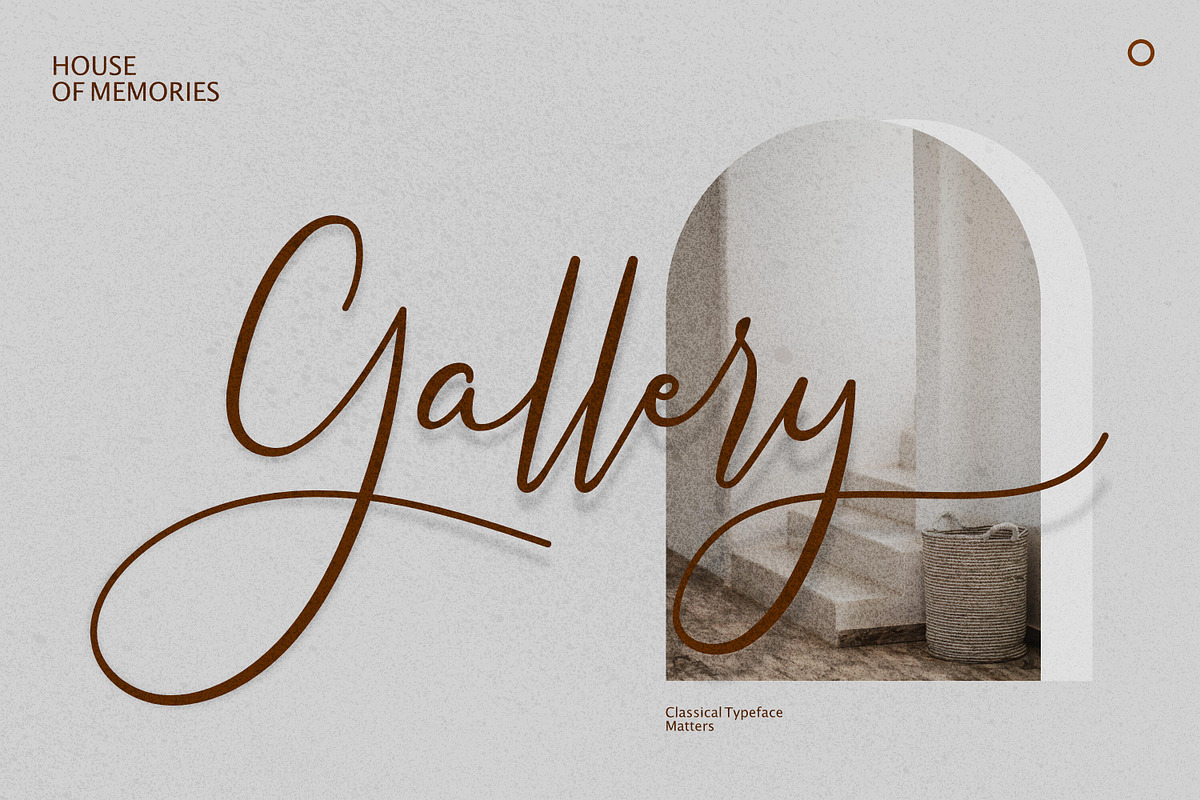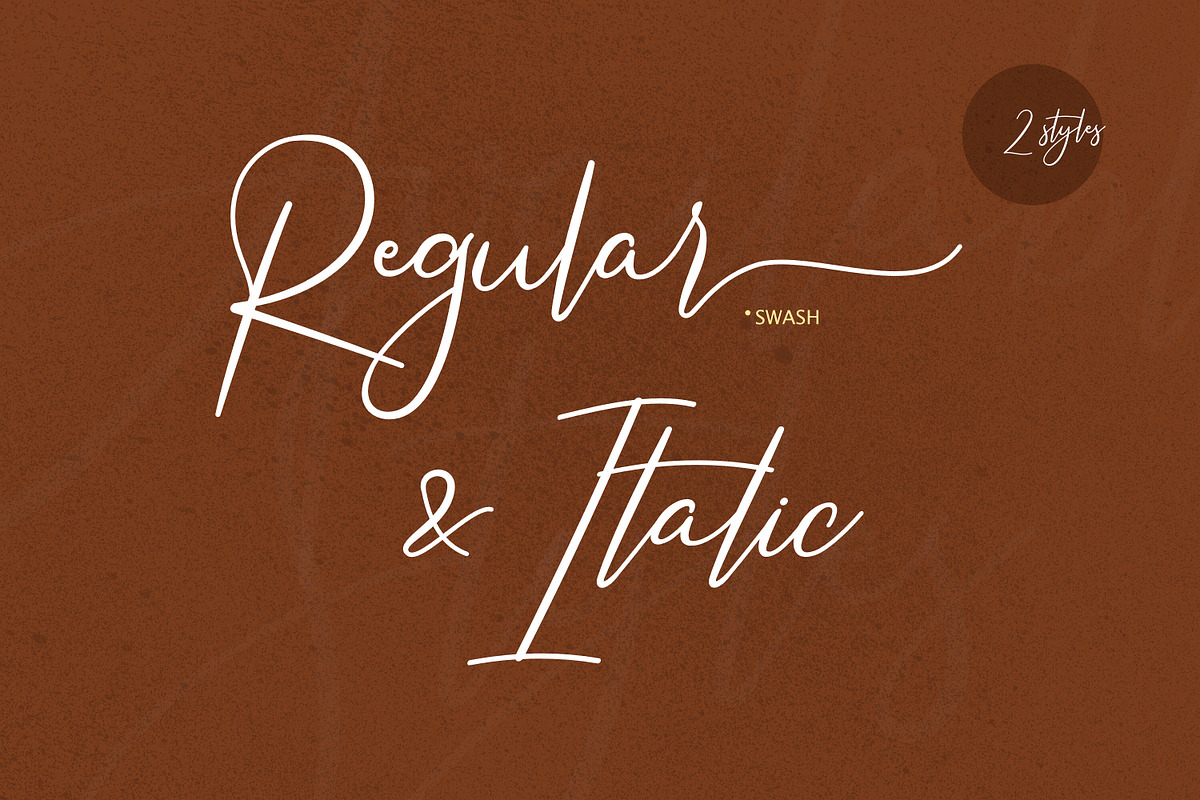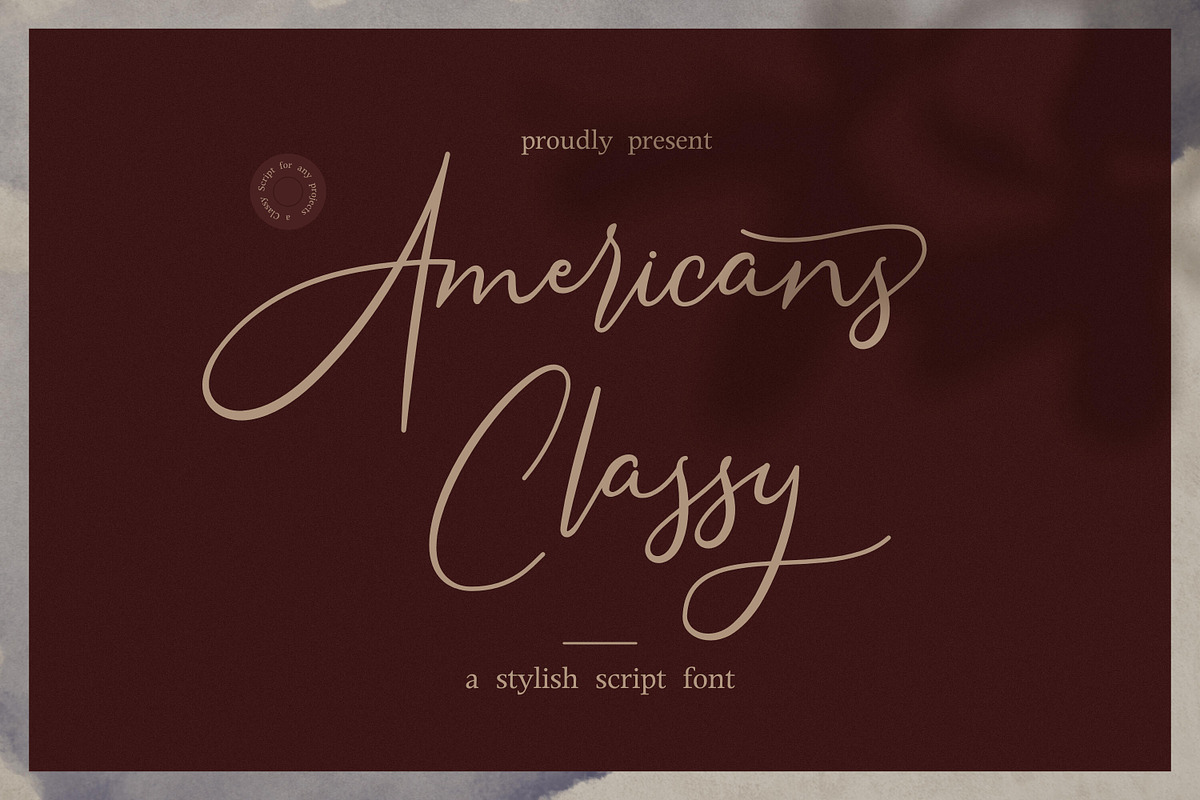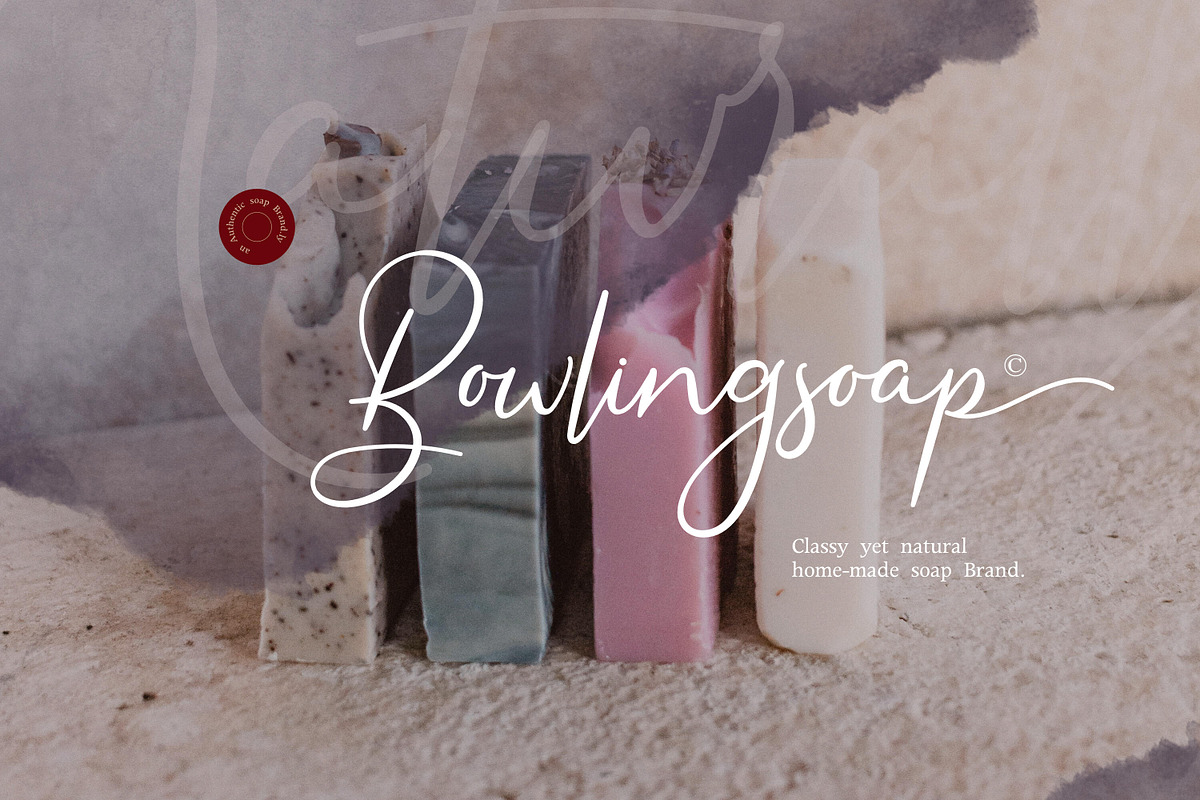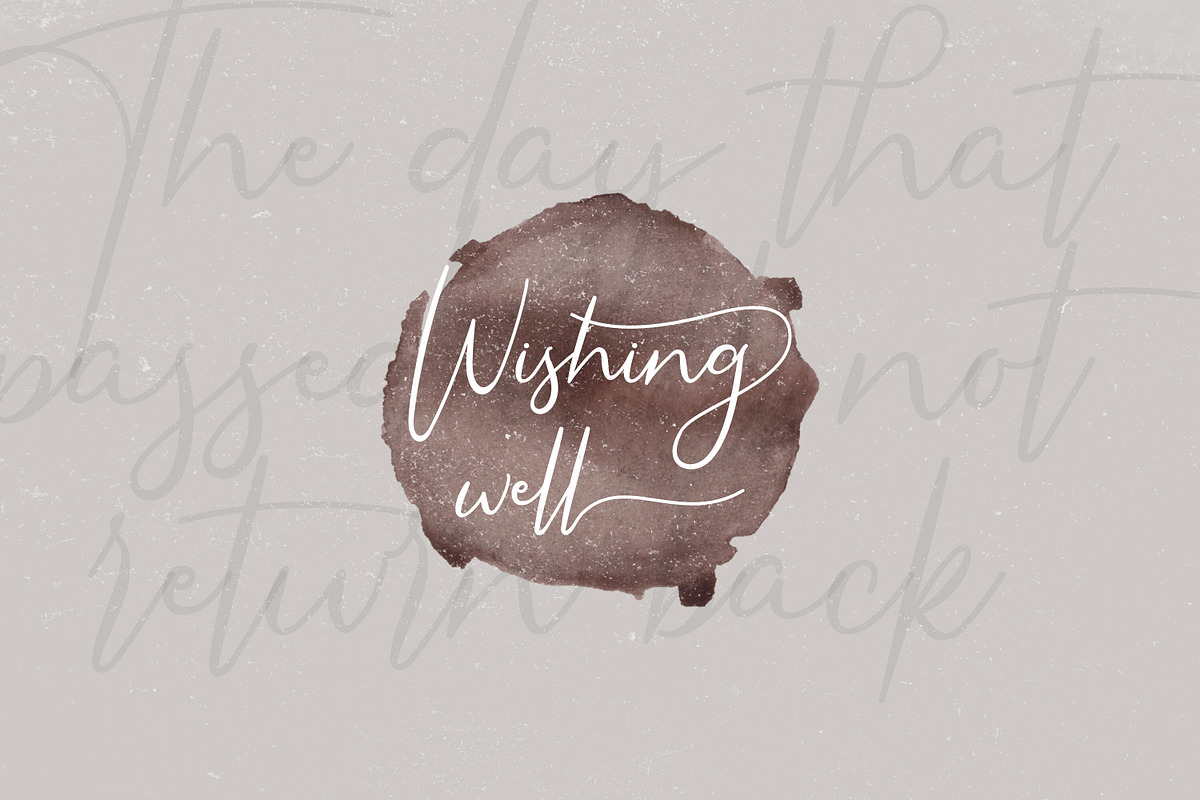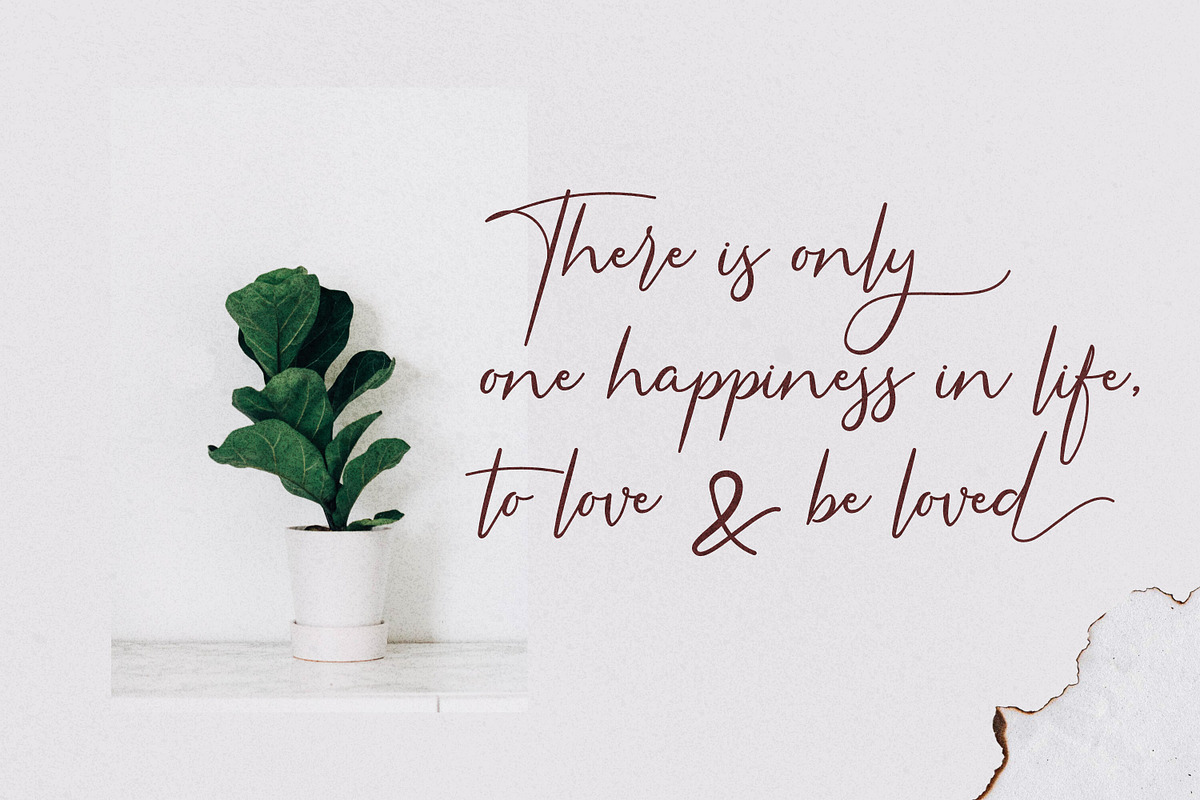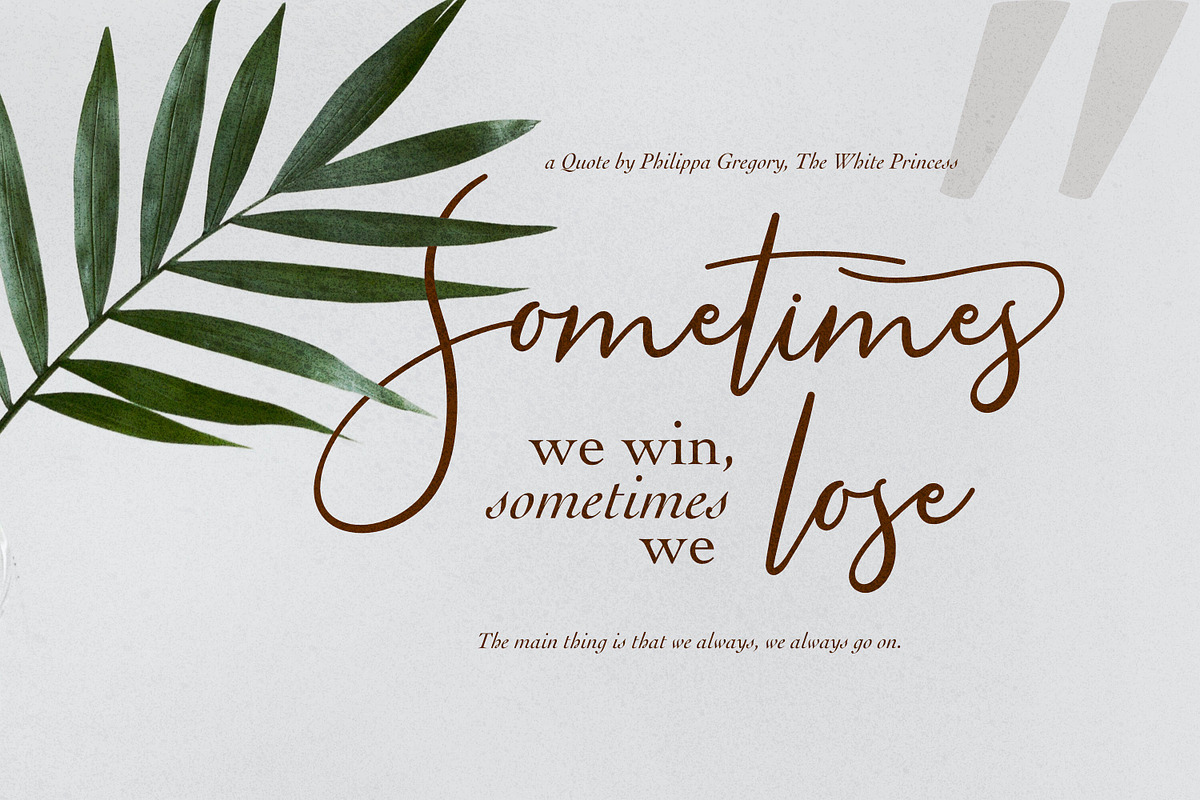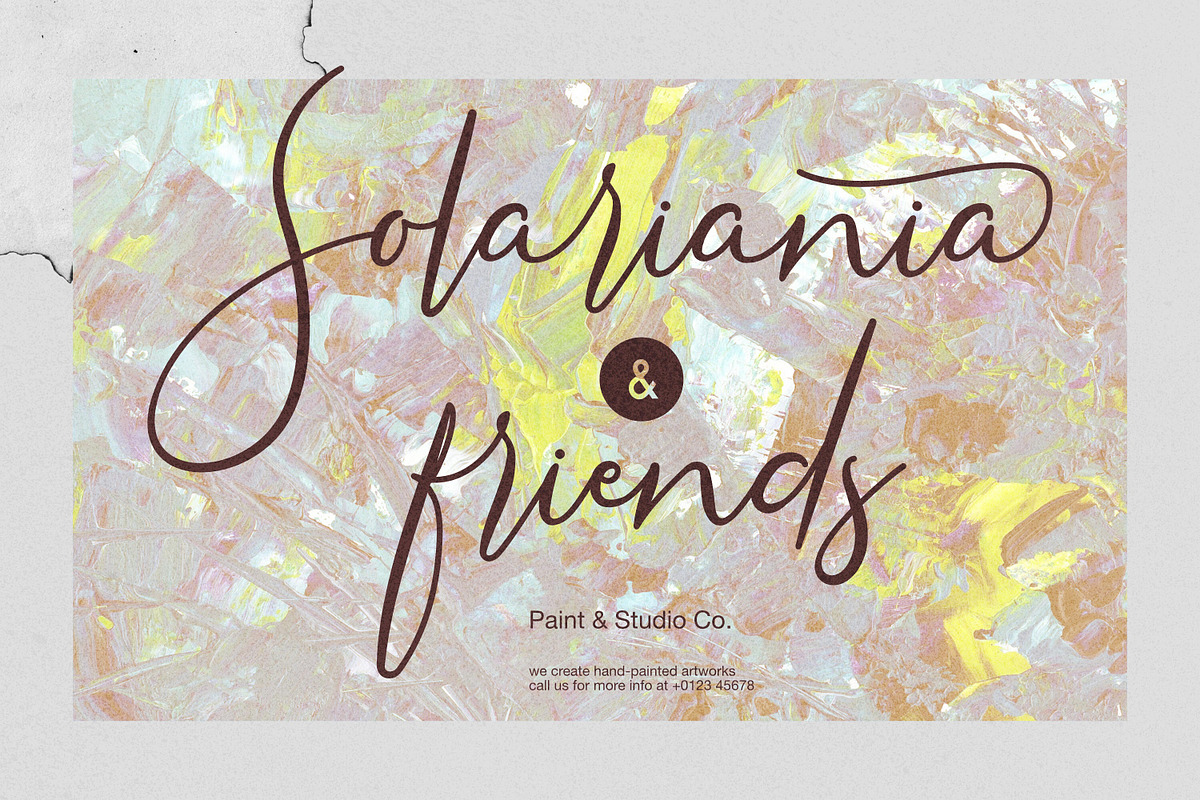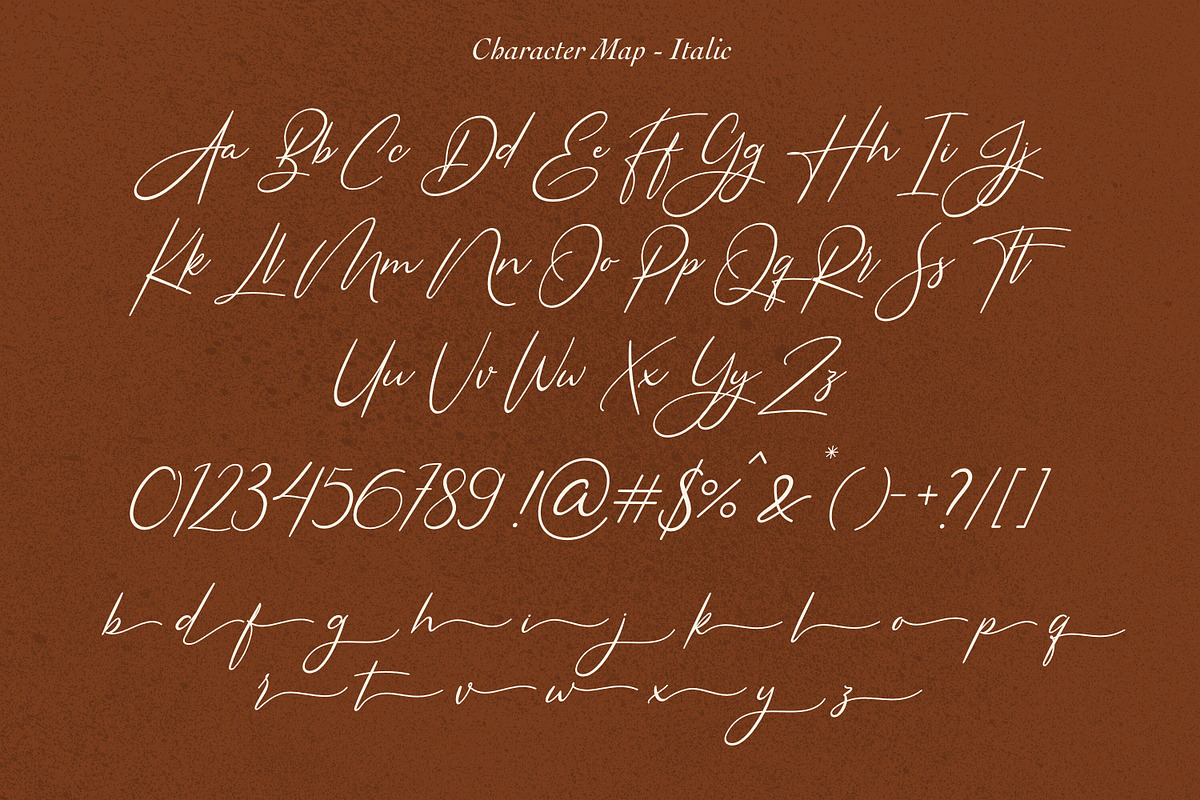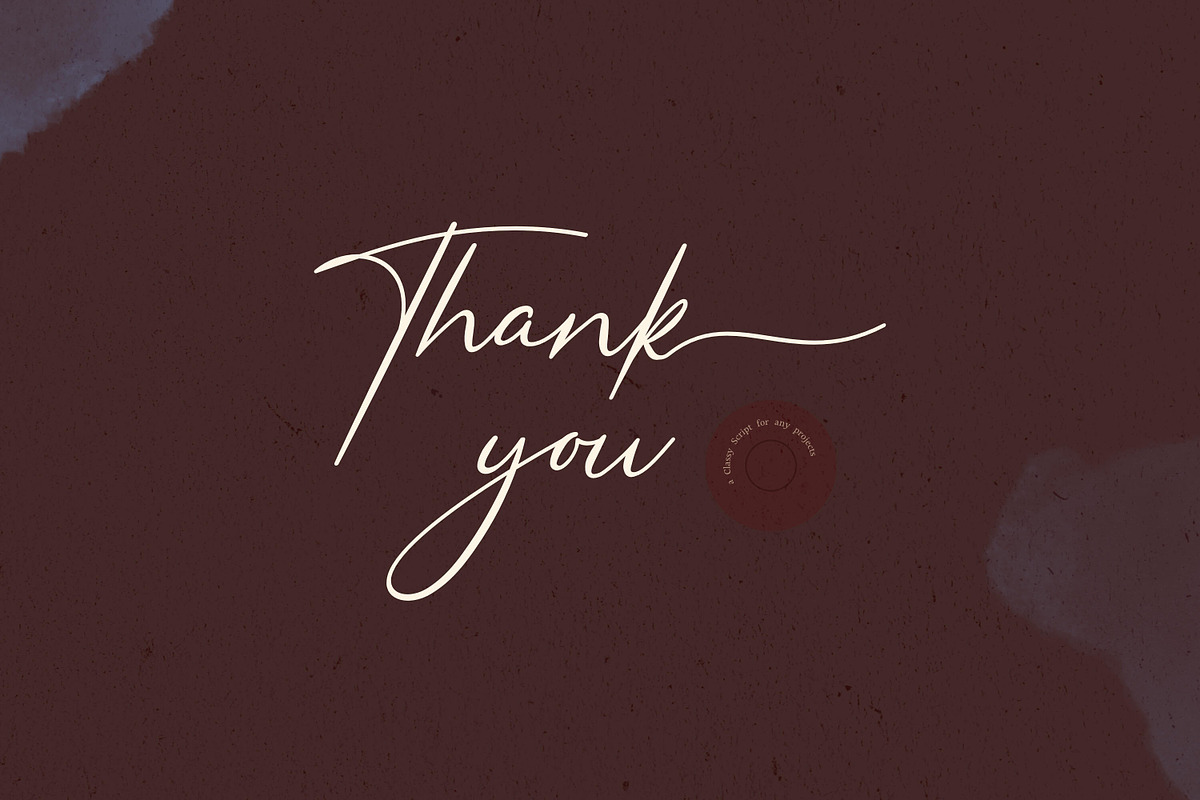
Americans Classy - Stylish Script
Americans Classy - Stylish Script , this font is great for your creative projects such as watermark on photography, and perfect for logos & branding, photography, invitation, watermark, advertisements, product designs, stationery, wedding designs,label, product packaging, special events or anything that need Signature taste.
- Alternates glyphs